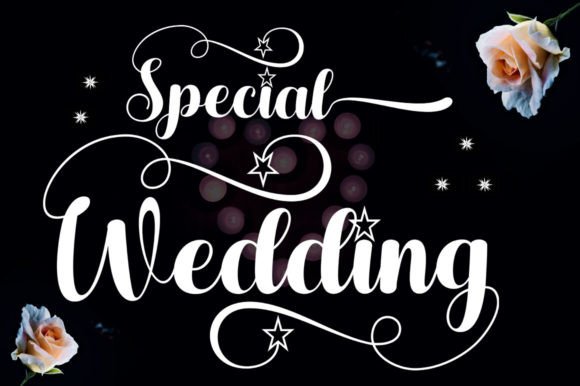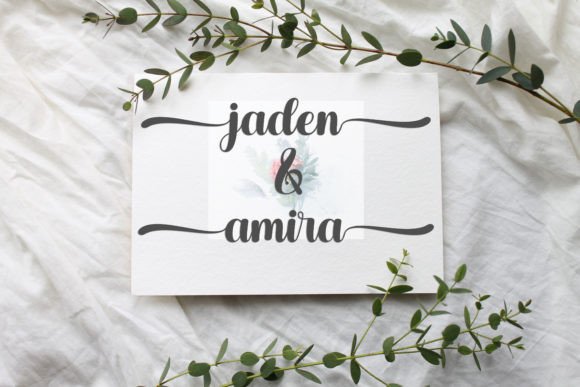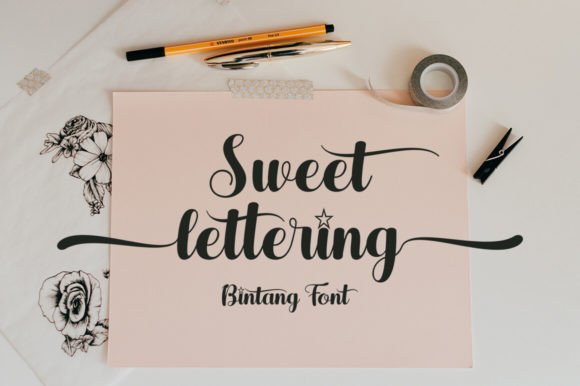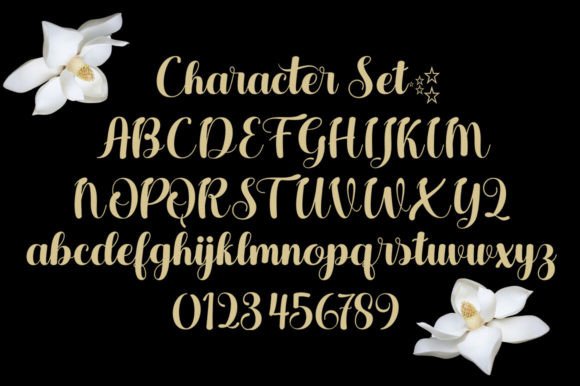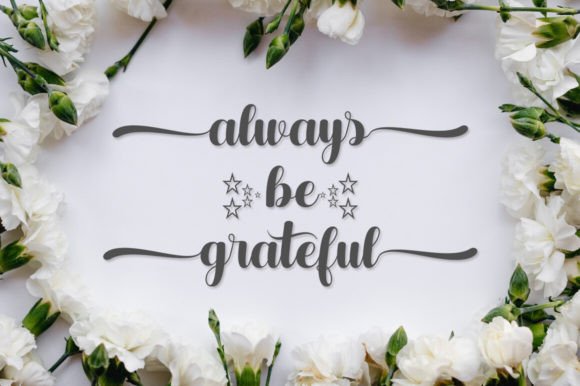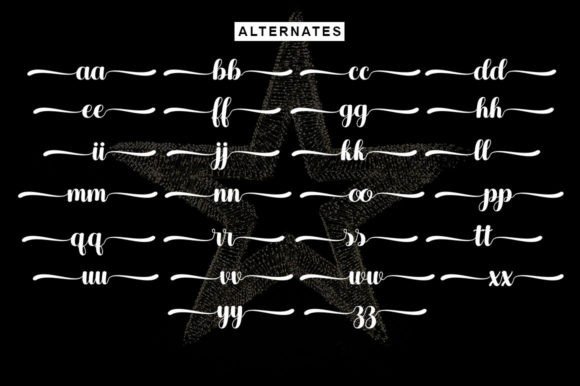
Introducing Bintang Font: Elevate Your Designs with Elegance and Sophistication
Are you looking for a font that exudes elegance and sophistication? Look no further than Bintang Font! This beautiful, handwritten font is perfect for designers and crafters who want to add a touch of luxury to their creations. Whether you’re working on wedding invitations, thank you cards, quotes, greeting cards, logos, business cards, or any other design that needs a personal touch, Bintang Font is the perfect choice.
A Font that Flows with Elegance
Bintang Font is a masterpiece of typography, featuring a varying baseline, smooth lines, gorgeous glyphs, and stunning alternates. Its elegant and flowing design makes it perfect for creating beautiful, eye-catching designs that will leave a lasting impression. The font’s unique characteristics give it a distinctive look that is sure to set your designs apart from the rest.
One of the best things about Bintang Font is its versatility. It can be used for a wide range of design projects, including:
- Quotes and inspirational posters
Wherever you need to add a touch of elegance and sophistication, Bintang Font is the perfect choice.
Multilingual Support
In today’s global marketplace, it’s more important than ever to have a font that supports multiple languages. Bintang Font is happy to offer multilingual support, making it easy to create designs that can be enjoyed by people all around the world.
Why Choose Bintang Font?
So why should you choose Bintang Font for your design projects? Here are just a few reasons:
- Elegance and sophistication: Bintang Font is the perfect choice for designers who want to add a touch of luxury to their creations.
- Versatility: This font can be used for a wide range of design projects, from wedding invitations to logos and branding materials.
- Multilingual support: With Bintang Font, you can create designs that can be enjoyed by people all around the world.